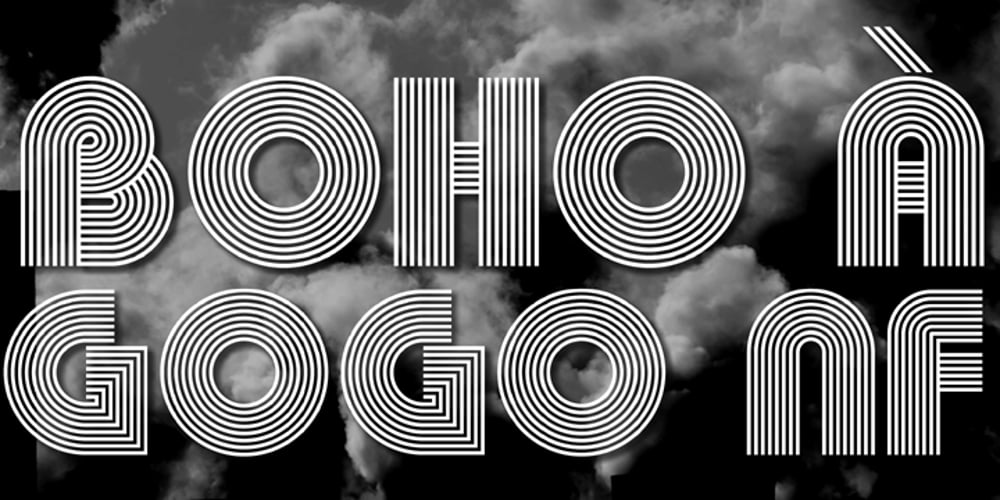
Boho A Gogo NF Font Family was designed by Nick Curtis and published by Nick’s Fonts. Boho A Gogo NF contains 1 styles and family package options. Letterforms from the 30s, inspired by Bauhaus Bold, combine with super 70s styling to create this disco-era delight. The bold characters, rendered by prismatic multilines, create striking headlines with a strong architectural feel. Both versions of this Pro Series font contain the complete Unicode Latin A character complement, along with extended ligatures and fractions.